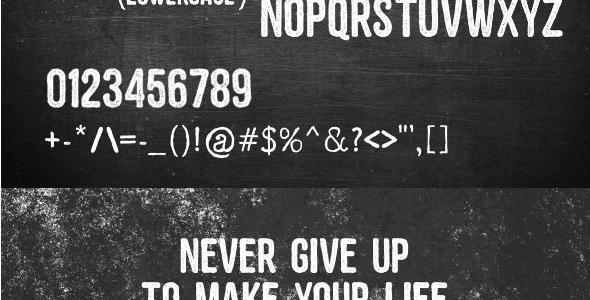
Zembood Typeface
Vintage handmade font , Zembood Typeface. In the demo version , zembood has been downloaded more than 8000 times a week. This Full version only open to sale in GraphicRiver. zembood by shirongampus